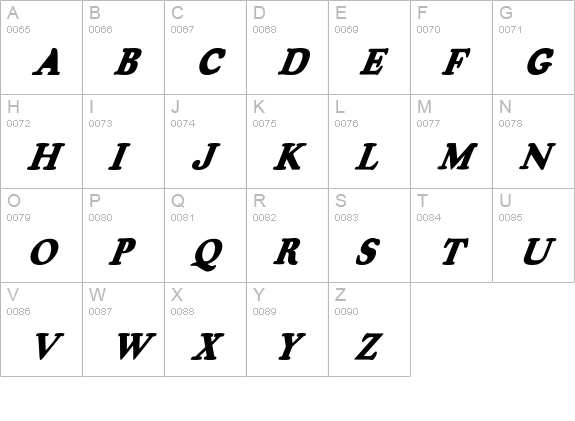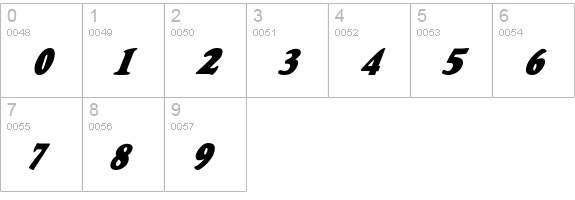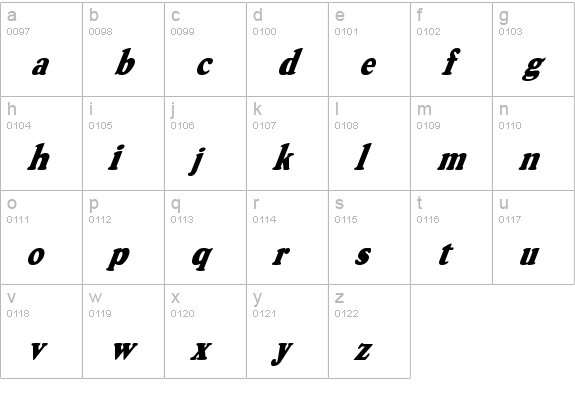
HarveyGrey-Italic Font Details
HarveyGrey-Italic is a distinctive, italic variant in the HarveyGrey typeface family \xE2\x80\x94 well suited to design and typography projects.
HarveyGrey-Italic font is a stunning and versatile typeface that exudes elegance and sophistication. Its slanted and italicized design adds a touch of dynamic flair to any text, making it perfect for a wide range of design projects. With its clean lines and graceful curves, HarveyGrey-Italic font is guaranteed to captivate and impress. Whether used for logos, headlines, invitations, or body text, this font will effortlessly elevate the visual appeal of your designs. One of the best features of HarveyGrey-Italic font is that it is freely available to download at FontsMarket.com. This means that you can access this premium font without any cost or hassle. It is a fantastic opportunity to enhance your design arsenal with a high-quality typeface that won't break the bank. The versatility of HarveyGrey-Italic font makes it suitable for both print and digital projects. Its legibility and readability ensure that your message is conveyed with clarity and style. Whether you're designing a website, creating a brochure, or crafting a social media post, this font will bring your content to life and leave a lasting impression. So why wait? Take advantage of the opportunity to download HarveyGrey-Italic font for free at FontsMarket.com and unlock a world of design possibilities. Elevate your projects with this sophisticated and eye-catching typeface that will undoubtedly leave a lasting impact on your audience.